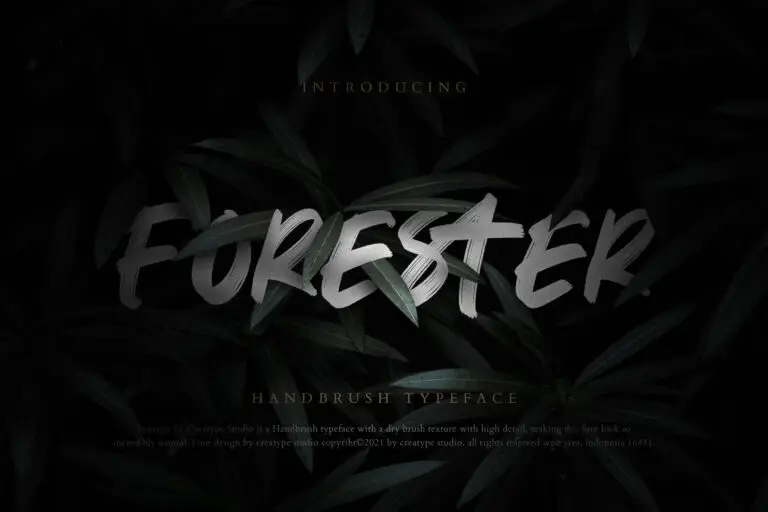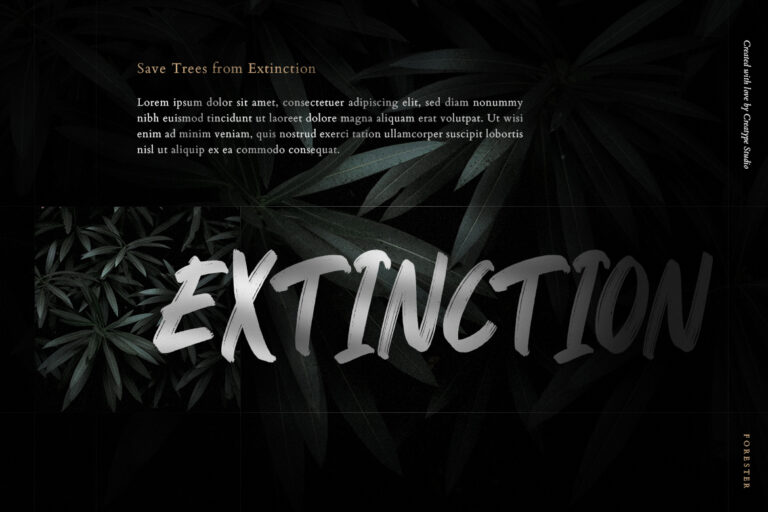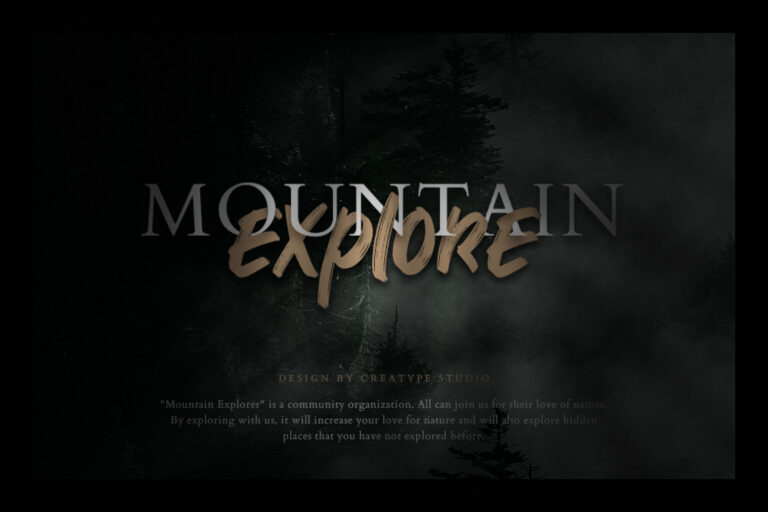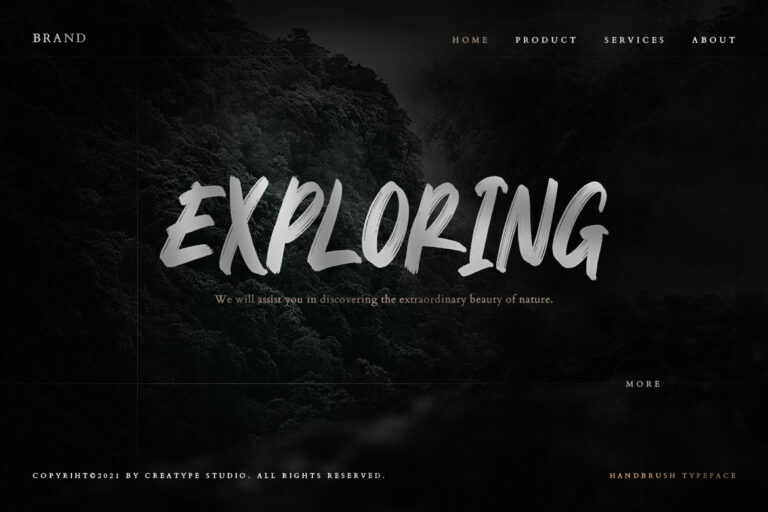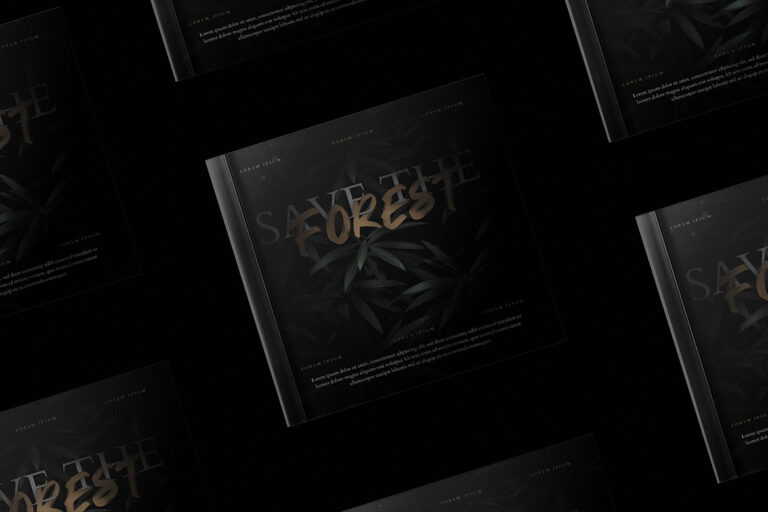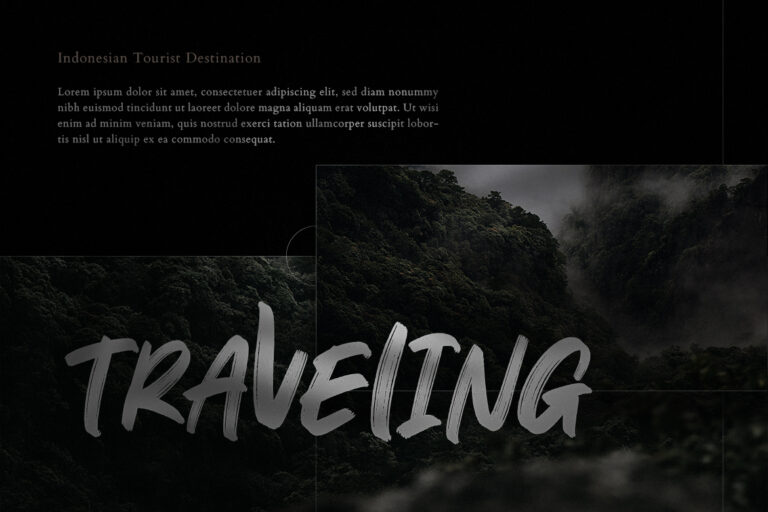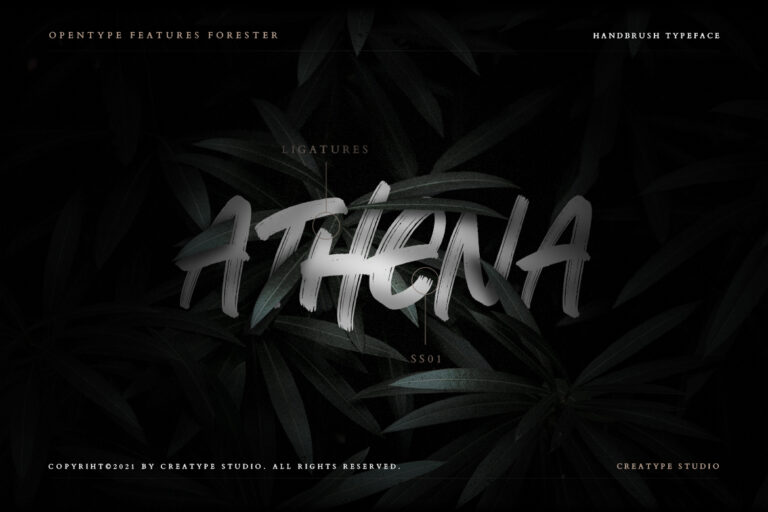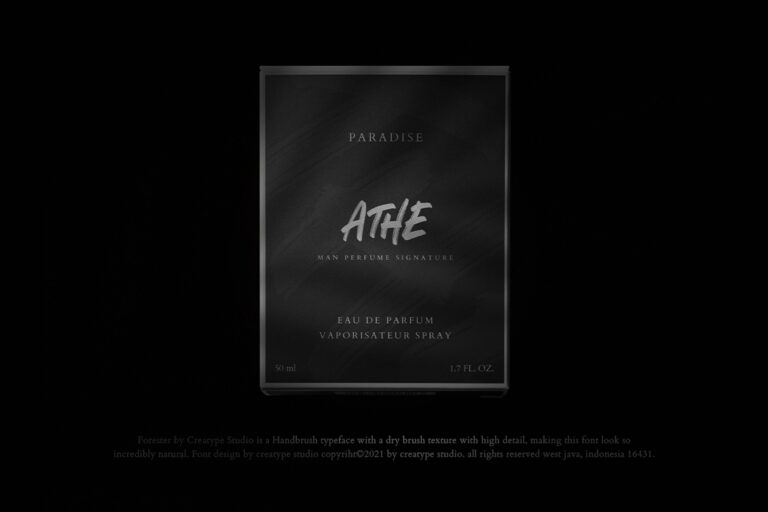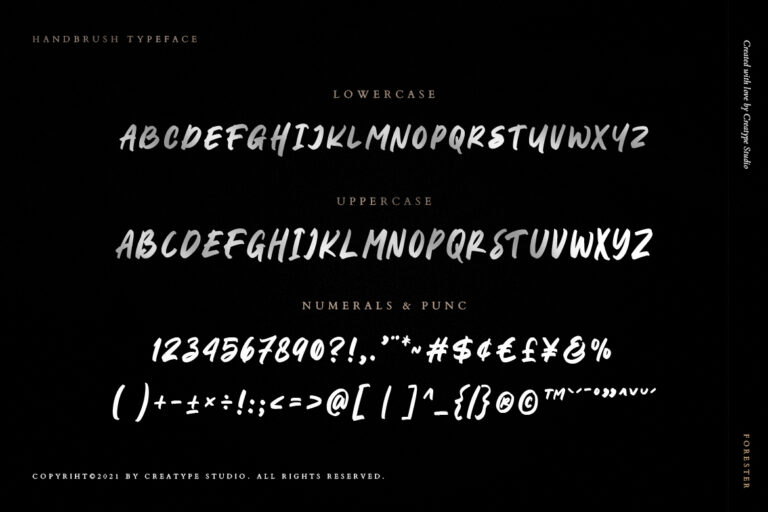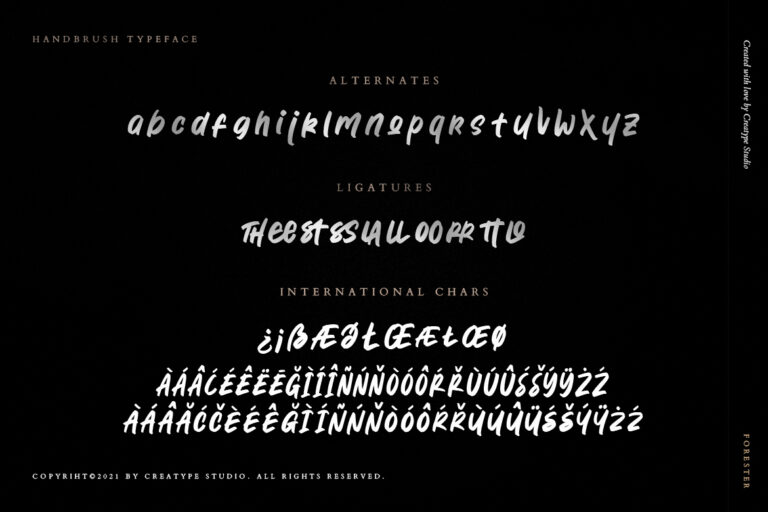
Forester Hand Brush
Forester is a hand brushed typeface specially made for producing amazing looking fonts. With distinctive strokes, it makes this font look natural so it fits all your masterpieces.
Forester is perfect for branding projects, logo, wedding designs, social media posts, advertisements, product packaging, product designs, label, photography, watermark, invitation, stationery and any projects that need handwriting taste.